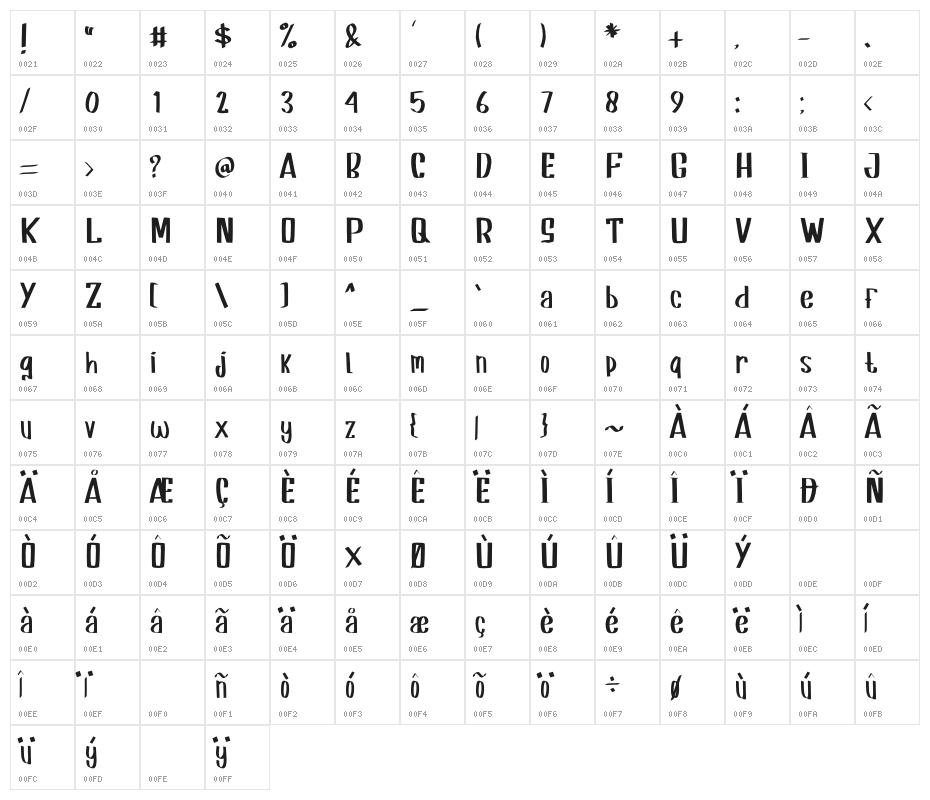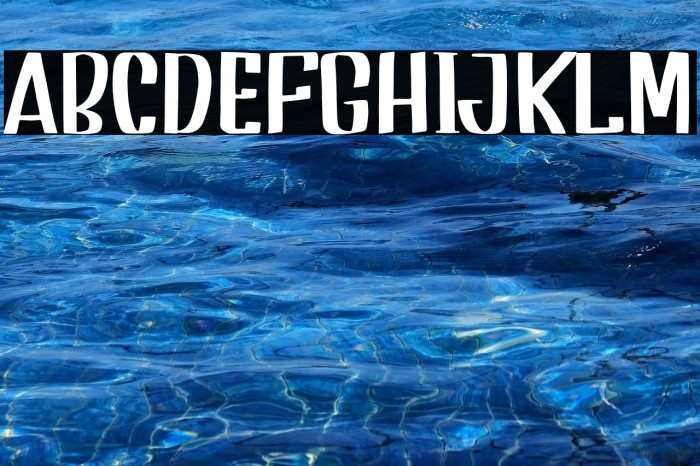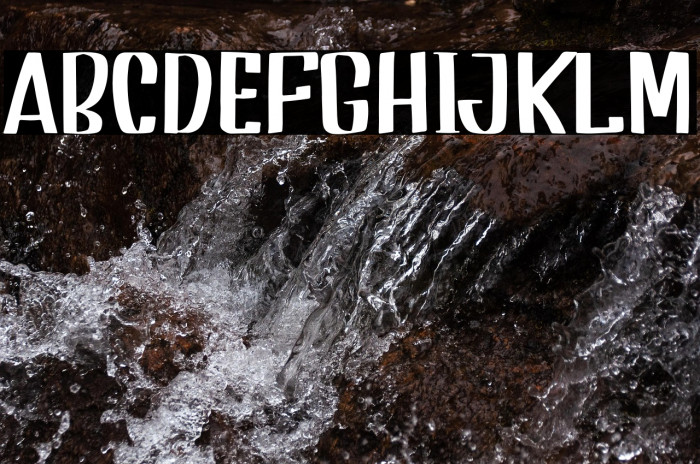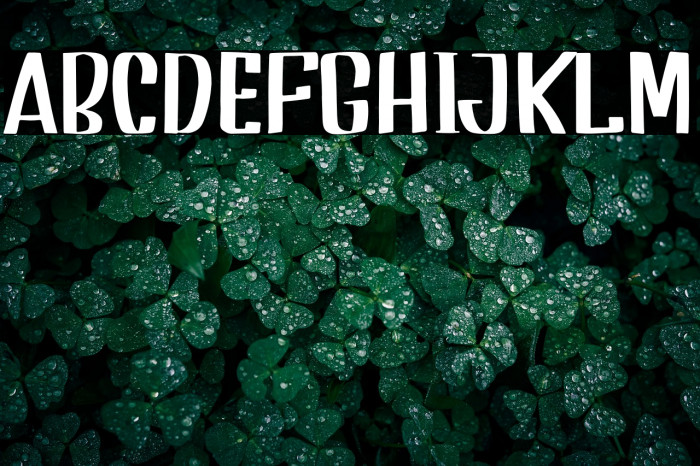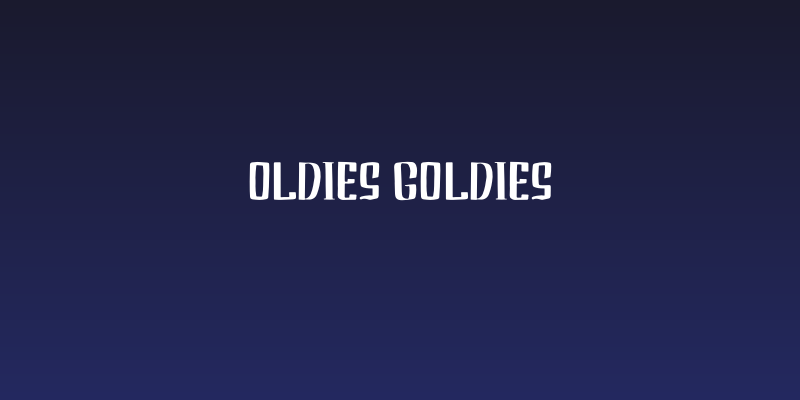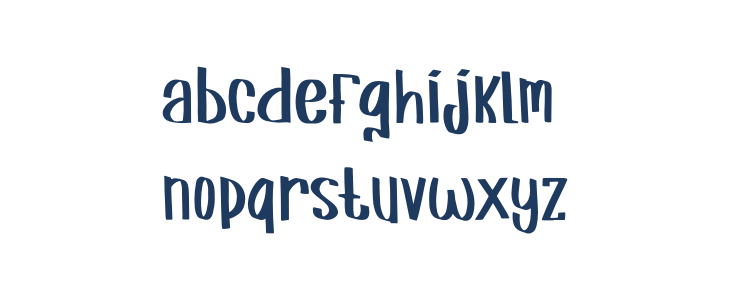
Oldies Goldies Font
Oldies Goldies Description
This font exudes a playful and retro vibe, characterized by its bold and slightly irregular letterforms. The uppercase letters are tall and commanding, while the lowercase letters maintain a quirky charm with their uneven baselines and varied stroke widths. The numbers and special characters follow the same whimsical style, adding to the font's overall personality. The strokes are thick and have a hand-drawn feel, making it perfect for projects that require a touch of nostalgia and fun. Its unique style makes it stand out, ideal for creative and eye-catching designs.
| Proposed Projects | Ideal for vintage-themed posters, playful branding, children's books, and creative packaging designs. |